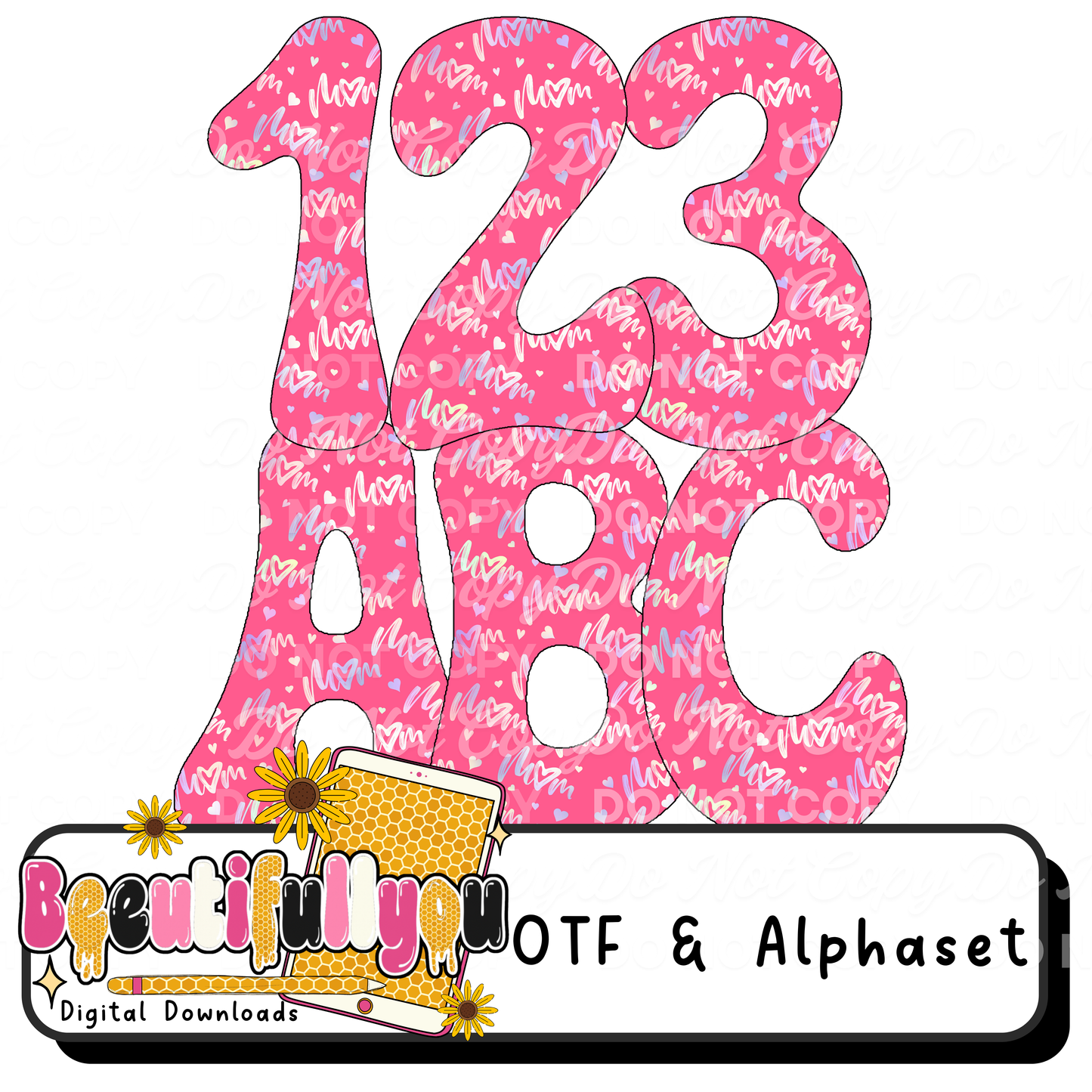
Mom Pattern Font OTF | Cute Mother’s Day Alphabet | Pink Mom Lettering Font | Trendy Bubble Font | Digital Download
💖✨ The cutest “Mom” font you didn’t know you needed!
This adorable pattern-filled font is perfect for Mother’s Day designs, mom life apparel, and all things cute + girly 💕 Featuring playful bubble-style lettering with a fun “mom” pattern throughout, this font is made to stand out in your designs!
🎨 Font Details
✔ Style: Rounded bubble lettering
✔ Filled pattern: “Mom” + hearts design
✔ Fun, playful, and trendy aesthetic
✔ Perfect for mom-themed designs
✔ Full alphabet (A–Z)
✔ Numbers (0–9)
✔ Basic punctuation/symbols